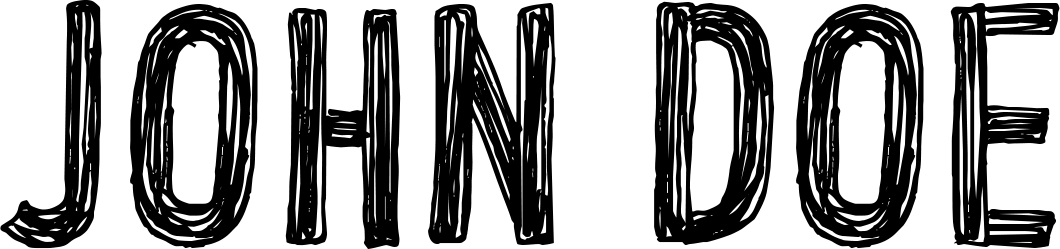
CF John Doe Font
CF John Doe is a sketch font that can help you create an awesome text design. This one comes with crosshatched characters and works flawlessly for cartoons, posters, books, and so forth. Keep in mind that this case doesn’t include numbers and punctuation. Download it right now and bring a playful feel to your text layouts.